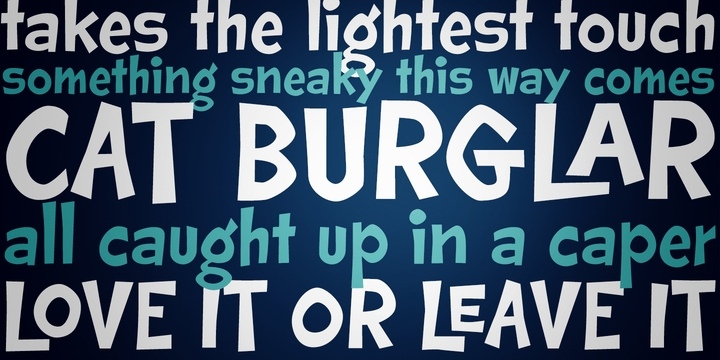
Cat Burglar PB Font
The Cat Burglar PB Font is a sleek and stylized typeface that's perfect for projects with a mischievous and playful edge. Its unique, stylized letterforms and quirky details make it an excellent choice for a variety of creative applications. Imagine it on a logo for a mysterious escape room, a poster for a spy-themed party, or a cool T-shirt design. It's also fantastic for creating eye-catching headlines, video game titles, and social media graphics, where its sneaky and fun character can truly shine. The Cat Burglar PB Font brings a sense of adventure and lighthearted intrigue to any project, making your designs both memorable and fun.
What makes this font so exciting is its clever blend of sharp angles and unexpected curves. The letterforms have a distinct, hand-drawn quality that feels both professional and full of personality. This isn't just a font; it’s a piece of art that tells a story, hinting at secret missions and playful heists. The unique look and feel of Cat Burglar PB are what make it a powerful tool for any designer looking to create something truly special and engaging. The font adds an element of fun and excitement that will make your designs stand out from the crowd and feel professionally crafted.
The Cat Burglar PB Font family is designed with a focus on style and impact. It comes in a single, well-balanced weight that is perfect for headlines and short, impactful phrases. The font includes a full set of uppercase and lowercase letters, numbers, and a variety of punctuation marks, giving you everything you need to create a cohesive and professional look. This streamlined family makes it easy to maintain a consistent style across all your design materials, ensuring your message is always clear and full of character.